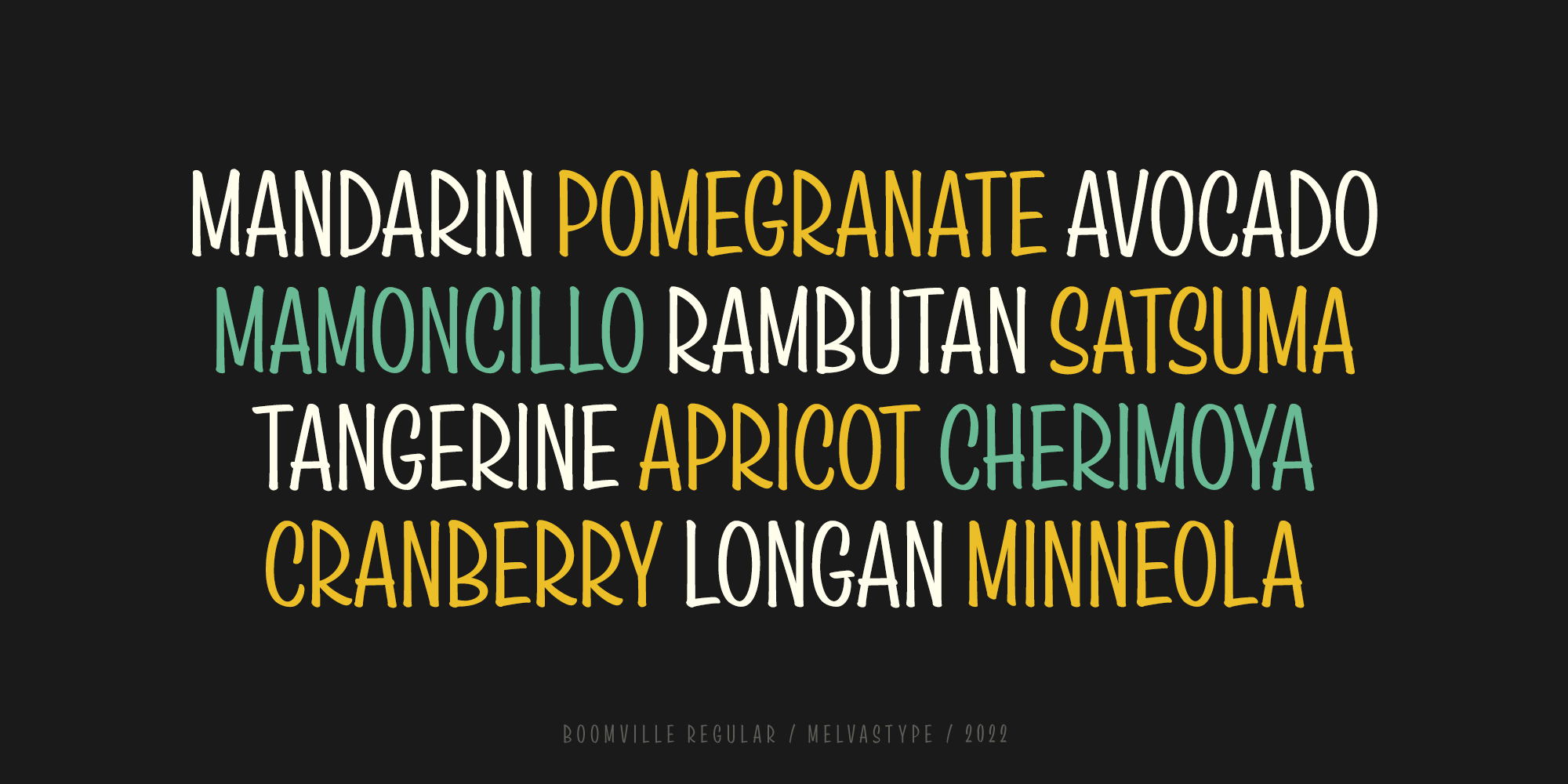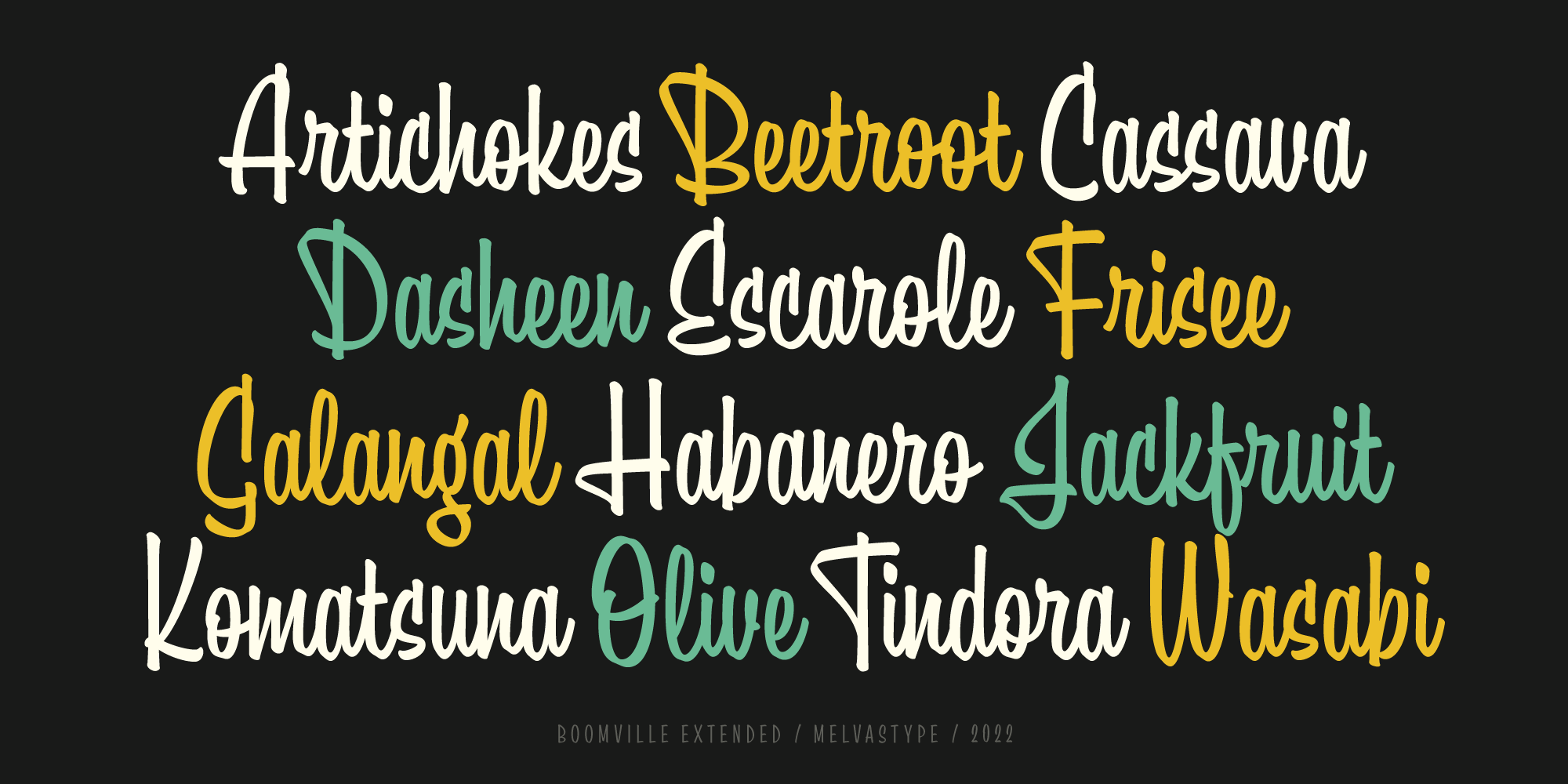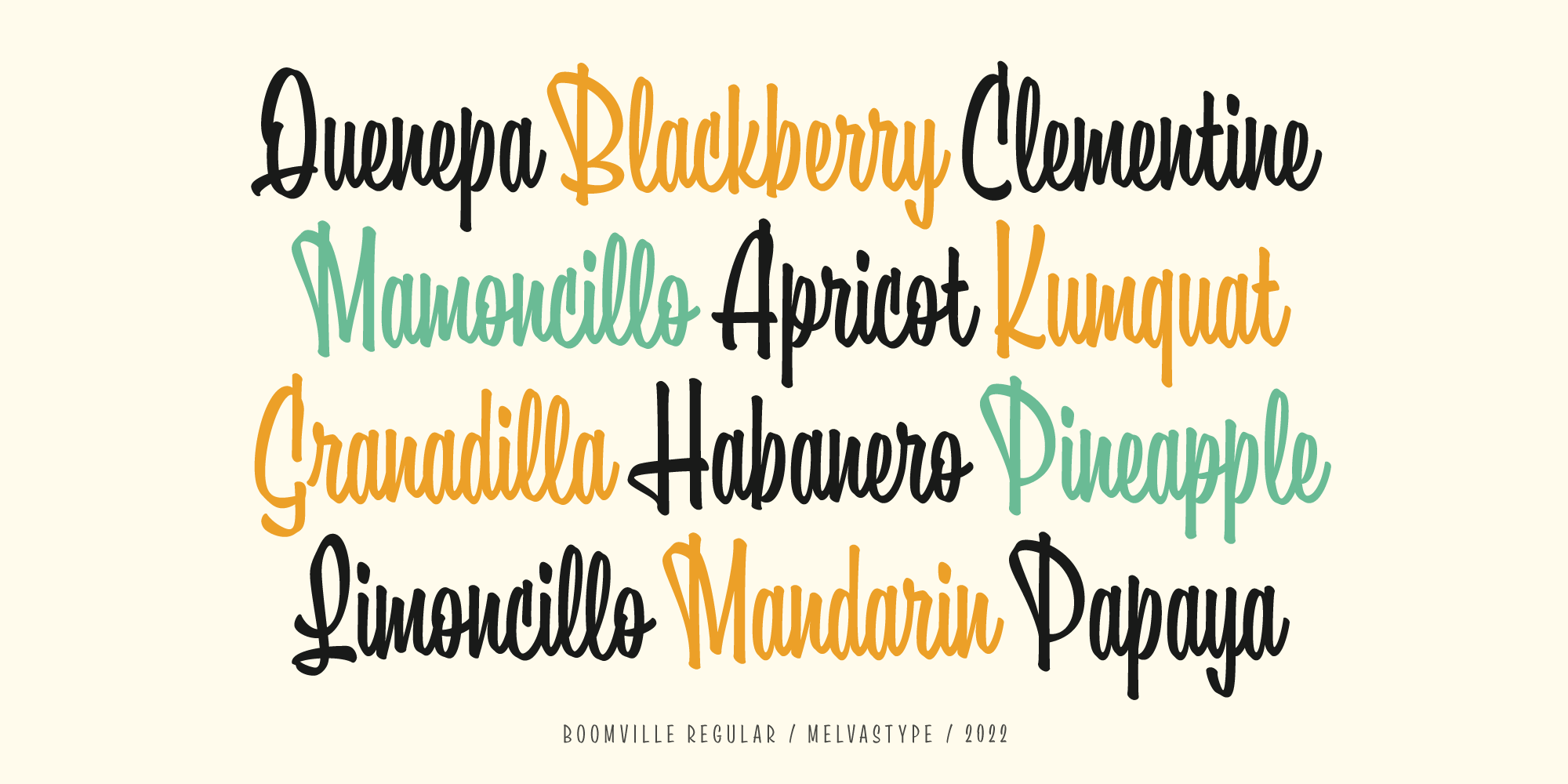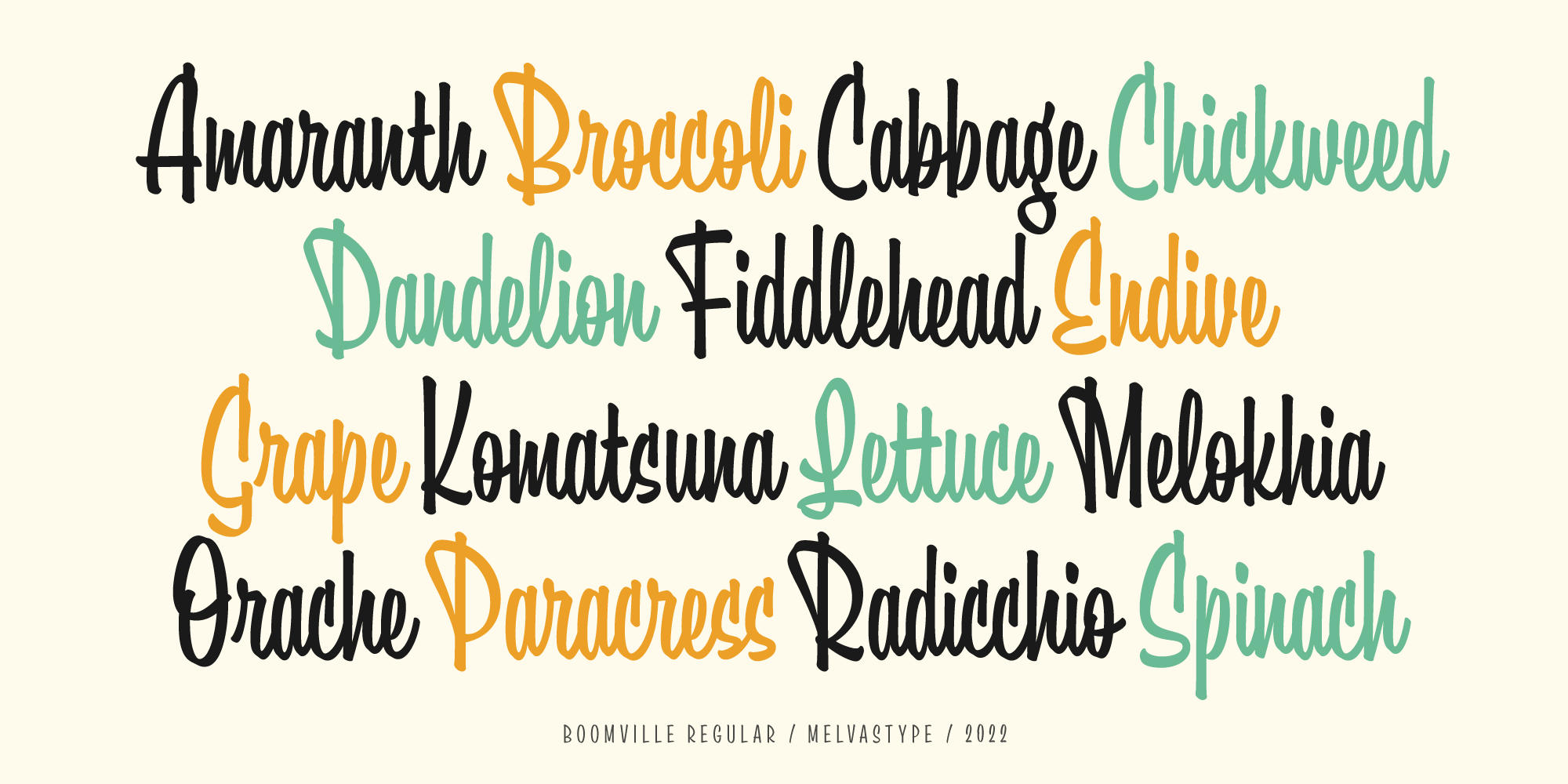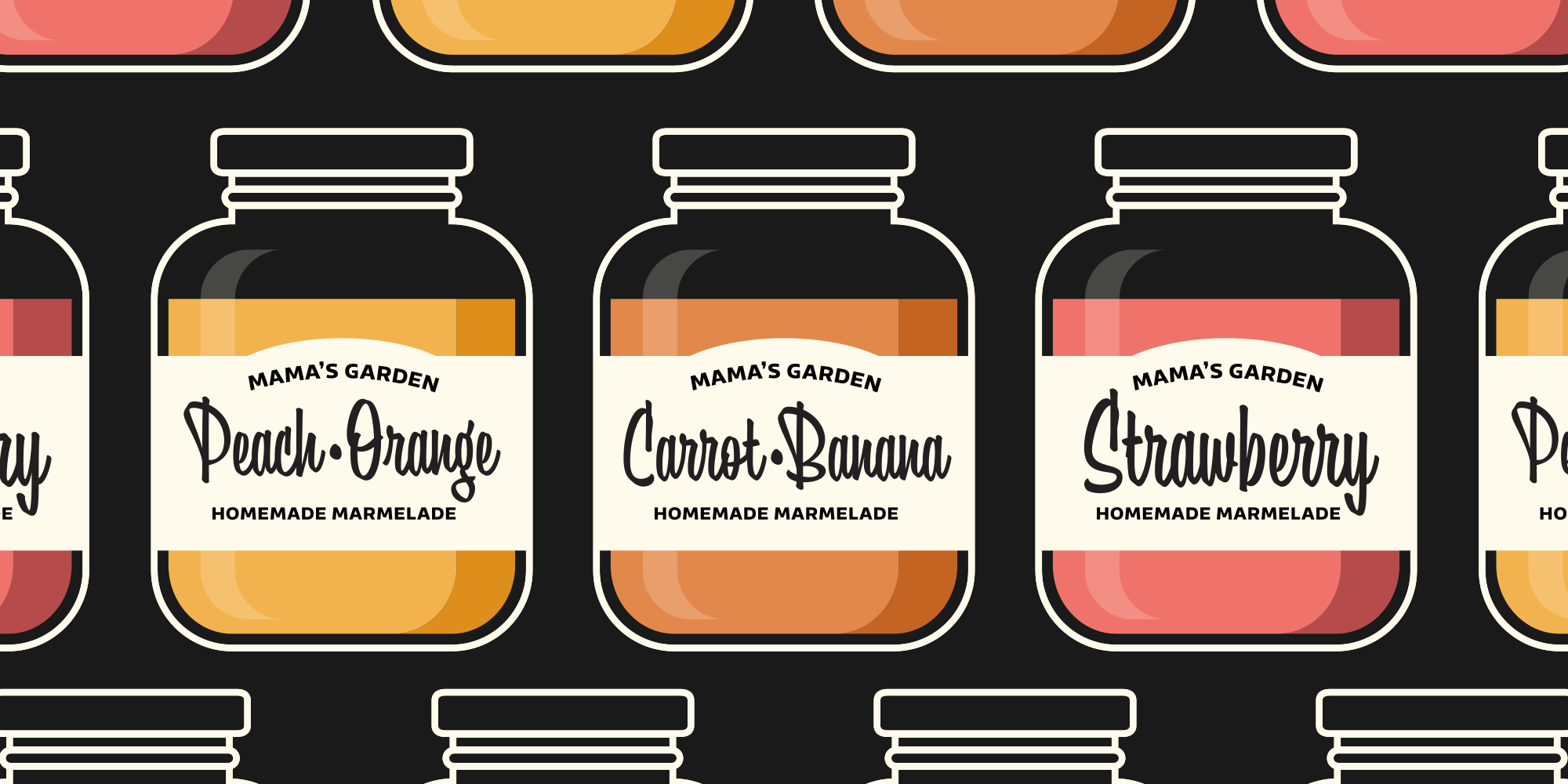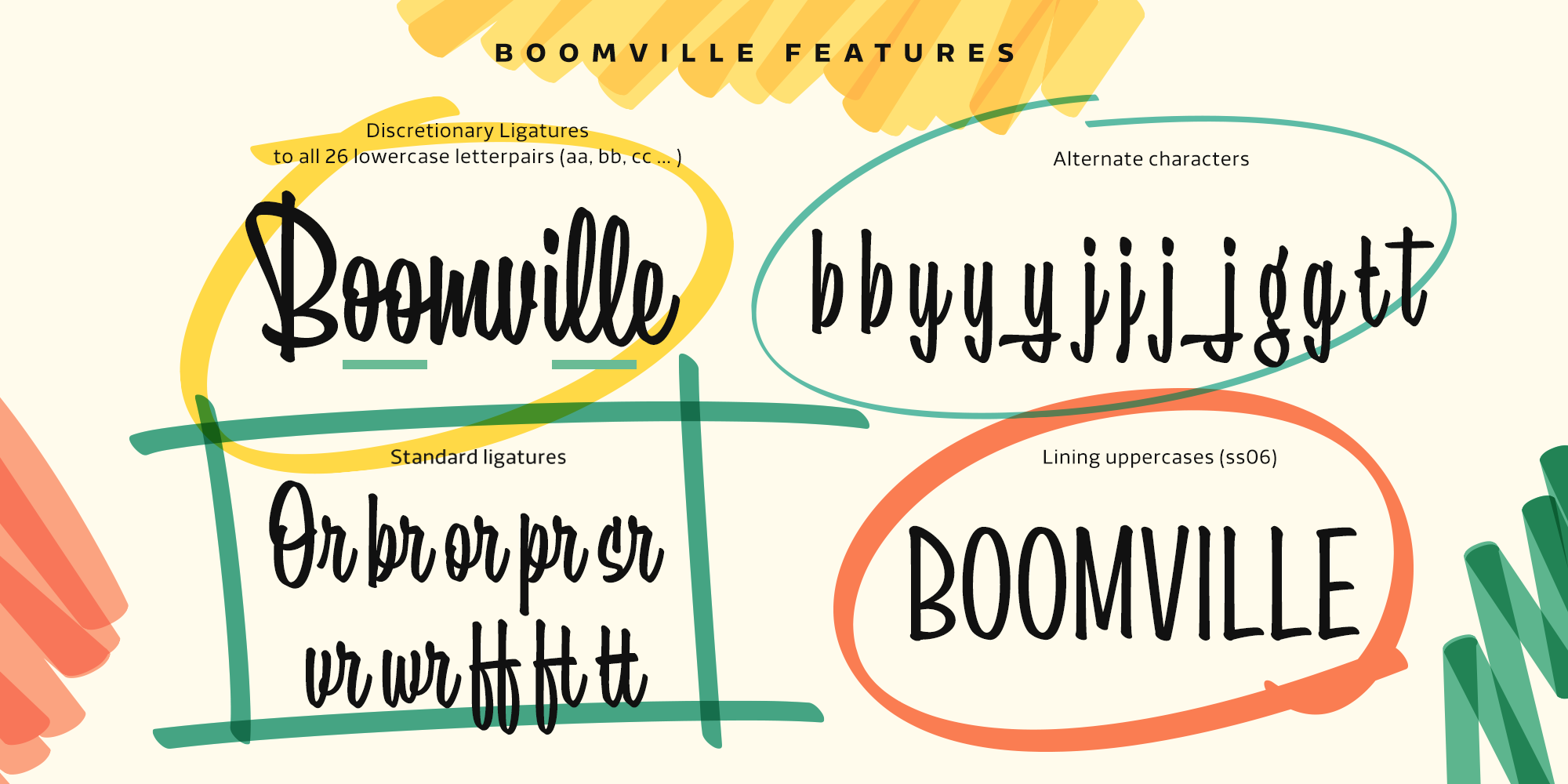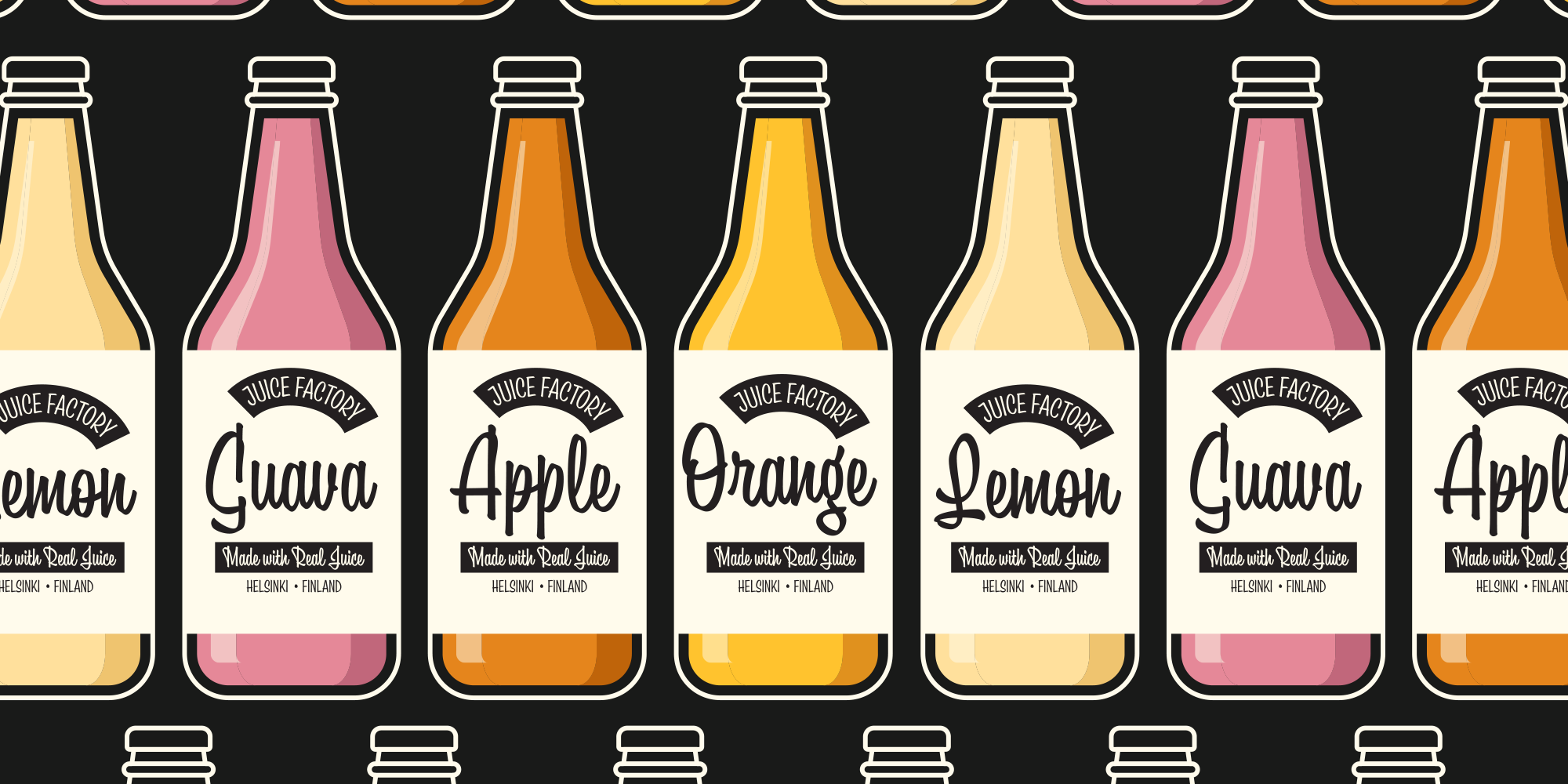
Boomville
Regular Extended
Boomville is a bouncy and upright script font. It is fun and lively with a lot of personality. This script is sketched with quick brush strokes with a pointed brush to achieve this casual and playful feeling.